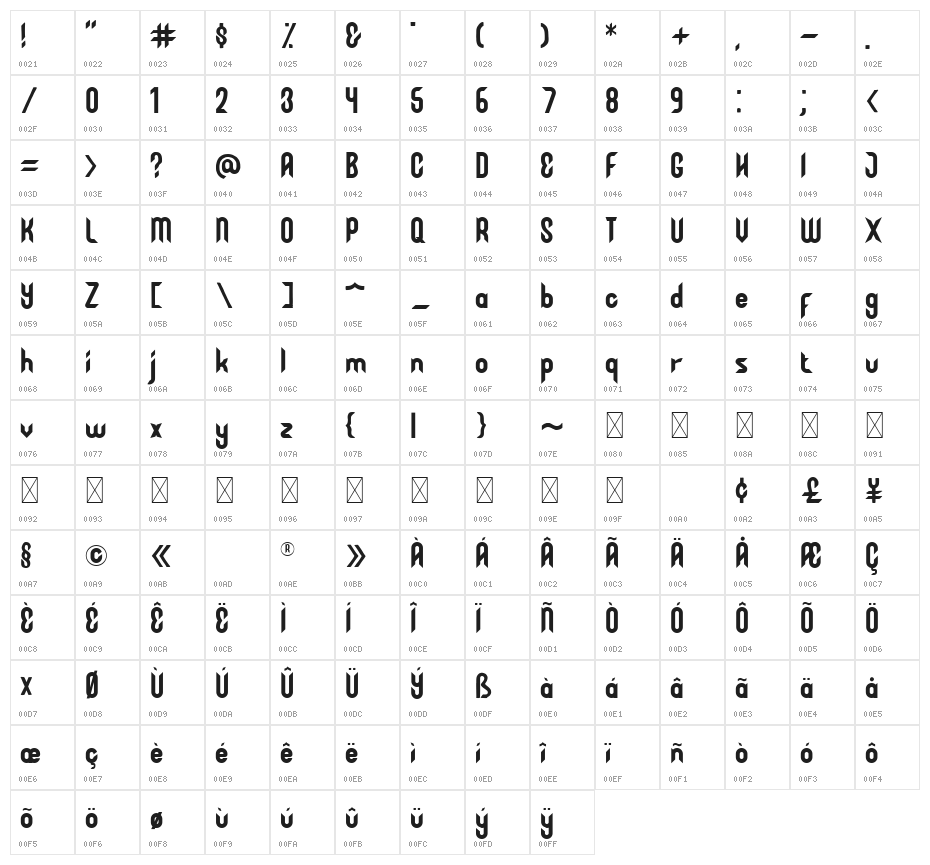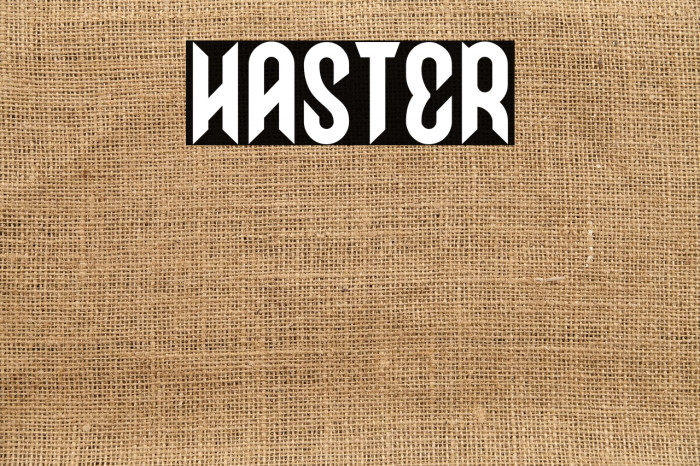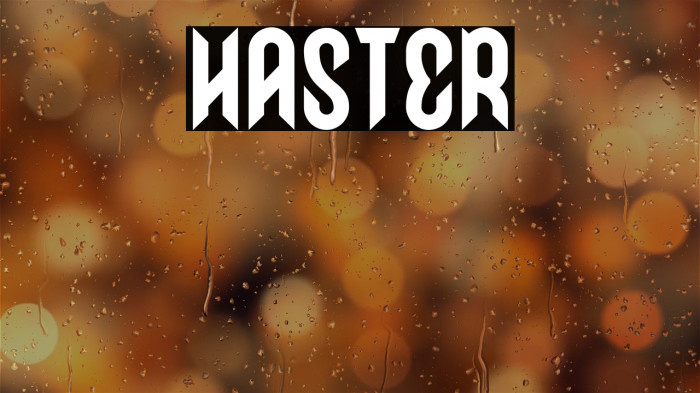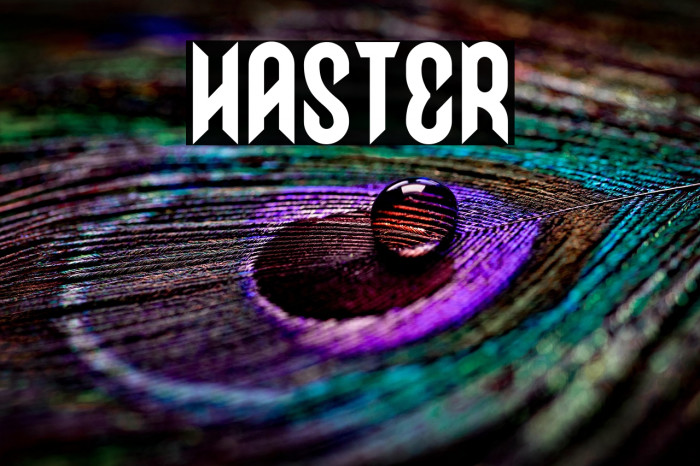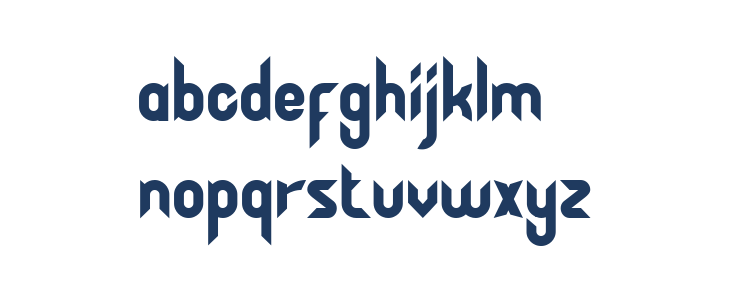
HASTER Font
HASTER Description
This font features a bold and angular design, characterized by sharp edges and geometric shapes. The uppercase letters exhibit a strong presence with their thick strokes and distinct angles, creating a sense of modernity and strength. The lowercase letters maintain this angular aesthetic, providing a cohesive look across the typeface. Numbers and special characters follow the same design principles, ensuring consistency throughout. The font's unique style makes it stand out, ideal for projects that require a bold and impactful visual statement.